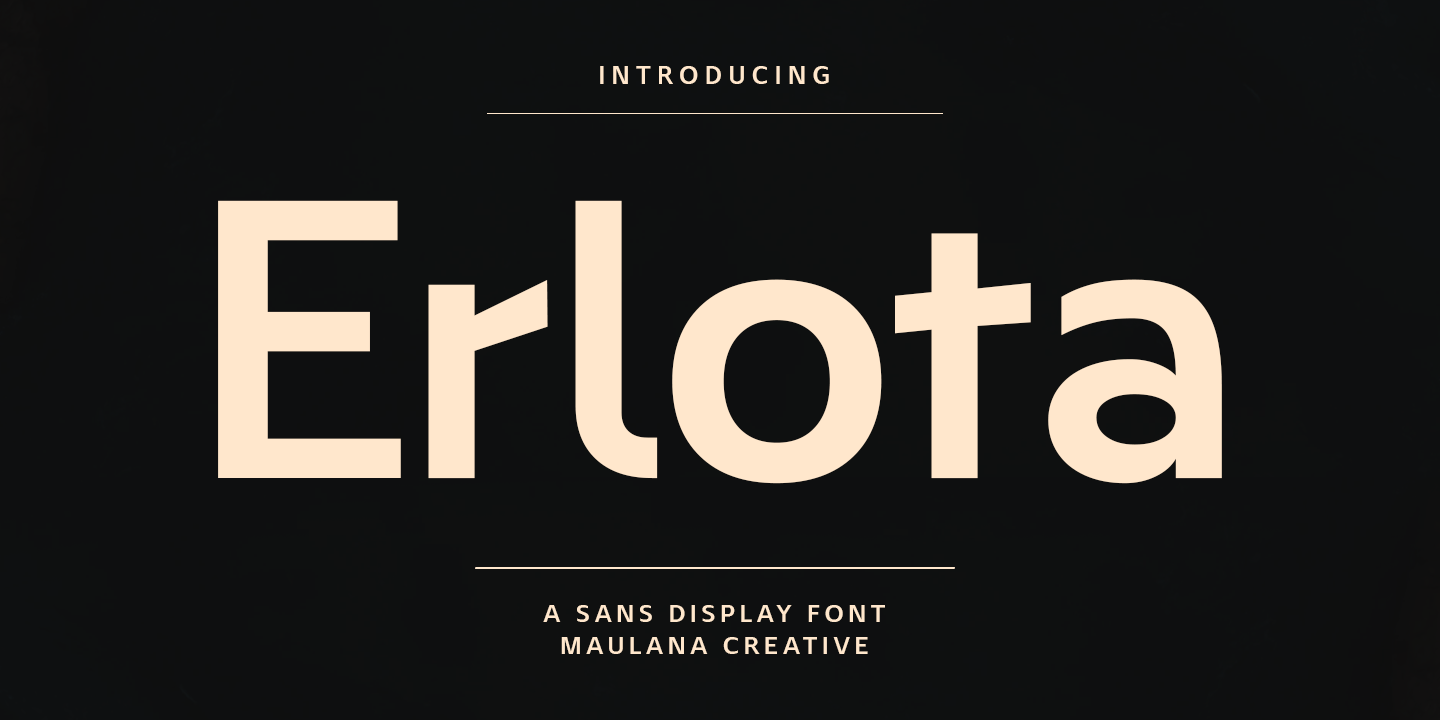
MC Erlota Font is perfect for elegant branding, sophisticated stationery, luxury packaging, refined signage, upscale corporate communications, graceful wedding materials, premium advertising campaigns, and distinguished display typography.
What makes MC Erlota Font exciting is its refined elegant character that embodies sophisticated grace and contemporary luxury through polished letterforms and upscale appeal. This distinguished typeface features elegant construction, refined details, and sophisticated personality that captures the essence of modern elegance and premium quality, making it ideal for projects seeking to communicate luxury, sophistication, and refined taste with authentic elegant appeal and contemporary refinement.
The MC Erlota Font family includes Light, Regular, Medium, and Bold weights, each maintaining the characteristic elegant sophistication and refined appeal that define this distinctive typeface's luxurious personality and contemporary grace.
MC Erlota Font Free Download provides access to a premium typeface that perfectly captures the essence of sophisticated elegance and contemporary luxury design. This refined font brings authentic elegant aesthetics to modern projects, making it essential for luxury brands, upscale services, and sophisticated companies targeting audiences who appreciate refined design quality and elegant presentation. The font's elegant construction and sophisticated details ensure immediate recognition of luxury and refinement while its distinctive character creates emotional connections among individuals seeking elegant experiences and sophisticated lifestyle choices. Whether designing luxury product materials, elegant brand campaigns, or sophisticated corporate communications, this font delivers the elegant authenticity and refined sophistication that discerning luxury audiences expect. Its luxury foundation and elegant symbolism make it indispensable for projects celebrating sophisticated lifestyle, contemporary elegance, and the timeless appeal of refined design, ensuring communications resonate with audiences who value the elegant grace, sophisticated refinement, and luxury quality that define authentic elegant experiences and refined lifestyle choices across diverse luxury and sophisticated applications.